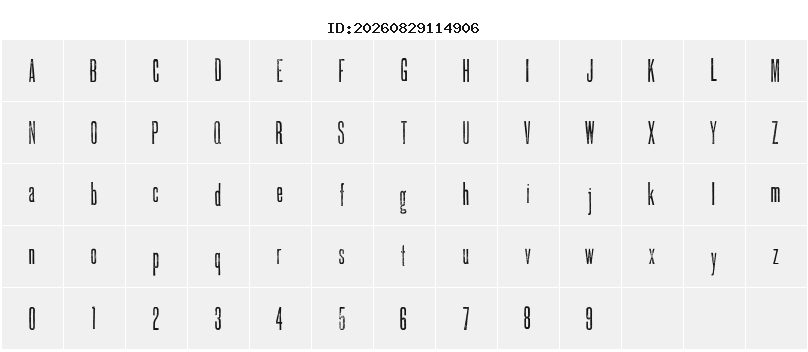
• Font Name: Thousandsticks WF
• Designer: Walden Font Co.
About Thousandsticks WF.ttf
Thousandsticks WF.ttf is a modern, elegant sans-serif font designed for ultimate readability and visual harmony. Perfect for branding, headlines, web design, and print materials.